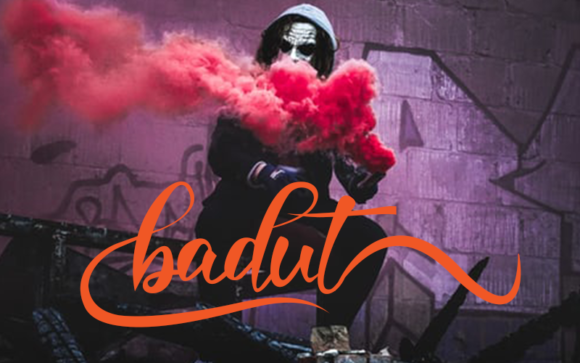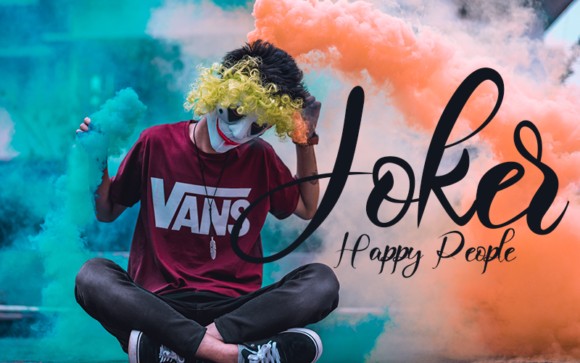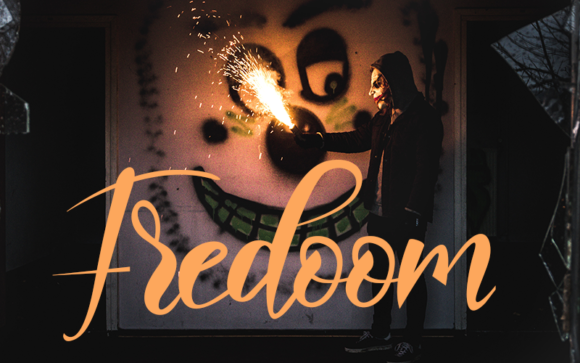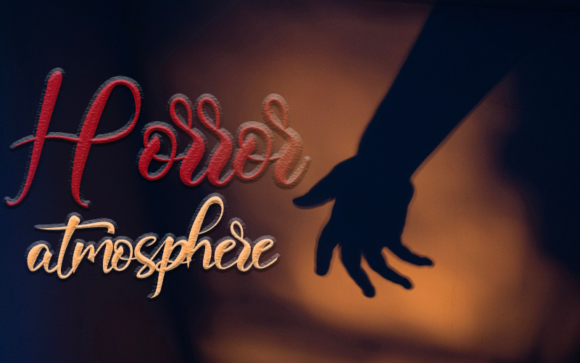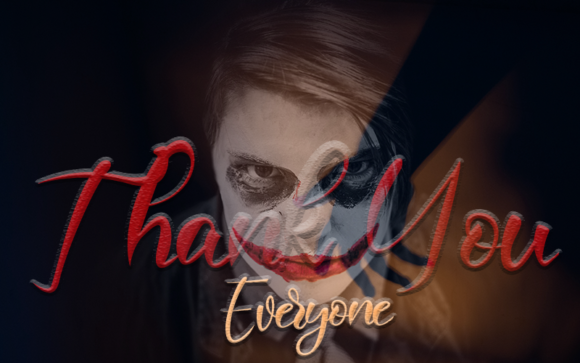
Badut Font
About Badut Font
Badut is a unique handwritten font. Clean and a little bit quirky, this font is the perfect fit for all of your logos, branding, social media, and crafty DIY projects.